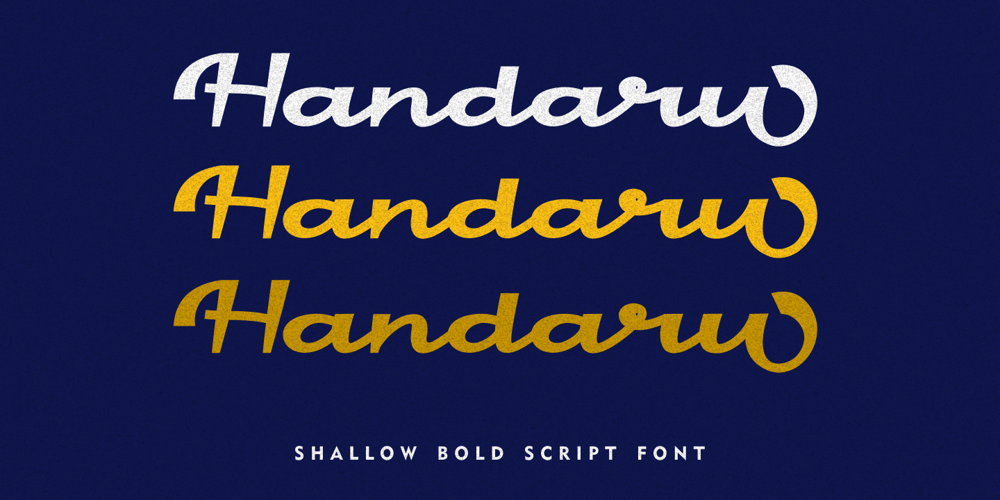
Handaru Font Family was designed by Putra Novembria Candra Kusuma and published by Putracetol. Handaru contains 1 styles and family package options. Handaru is a shallow bold script font. I call it shallow because this font is shallow or flattened than most other fonts. But even so, it still doesn’t take away from the neat and modern impression of this font. That’s what makes this font so unique.Also ideal for logos, badge, label, apparel, club, event, handwritten quotes, product packaging, header, poster, merchandise, social media & greeting cards.Handaru come with opentype feature like a lot of alternates. Its help you to make beautiful lettering.This font is also support multi language (áâàäåãæçéêèëíîìïıðñóôòöõøœšúûùüýÿžþÁÂÀÄÅÃÆÇÉÊÈËÍÎÌÏÐÑÓÔÒÖÕØŒŠÚÛÙÜÝŸŽÞ)